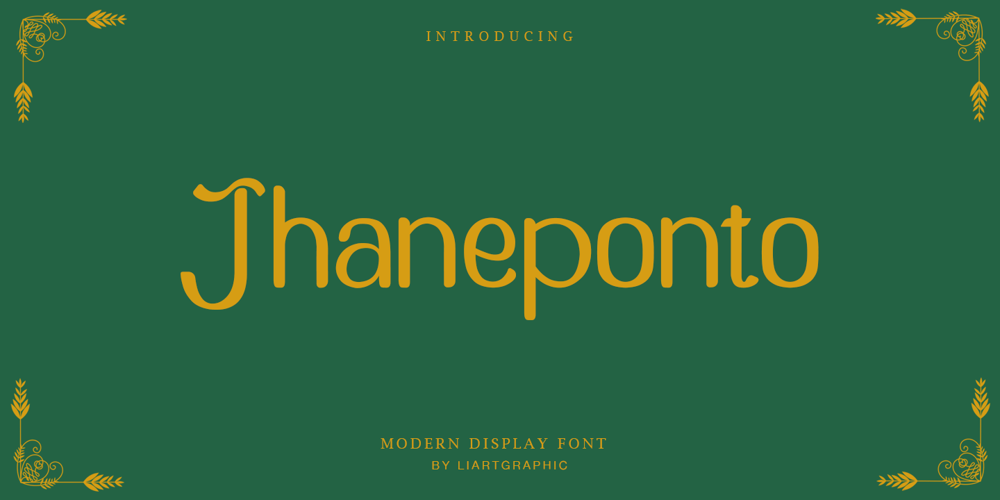
Jhaneponto
Jhaneponto font
Jhaneponto Font Family was designed by Ali Sifak Muftari and published by Liartgraphic. Jhaneponto contains 1 styles and family package options. Jhaneponto is a display font with a hint of a modern blackletter style. Jhaneponto font is suitable to use for logos, titles, landing pages, leaflets, and others. With its shape and uniqueness, you will definitely like this font! This font is PUA encoded which means you can access the available glyphs and swashes with ease!